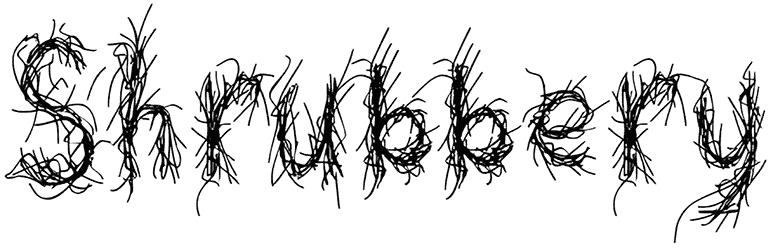
Shrubbery Font
You have every right to be confused with Shrubbery and what the hell it’s doing. All of us are. No big deal. It’s just acting out like a teenager just to get more attention. But it works, doesn’t it?
This death metal font is a little messed up and probably won’t work at longer distances like posters, unless they’re digital, like IG banners or YouTube thumbnails, something you know your readers will be looking at from up close, for Halloween or some other dark subject.